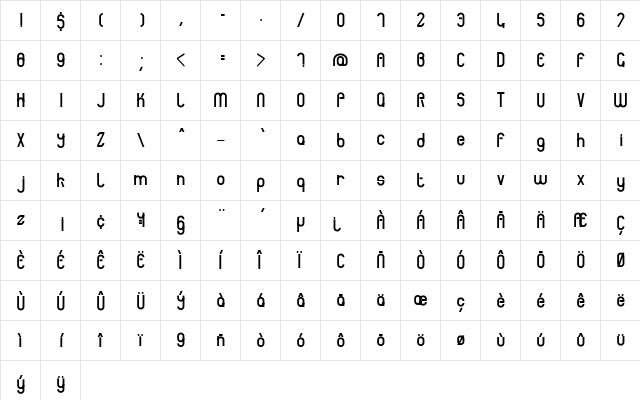
Tacoma Regular Font Preview
Tacoma Regular
Tacoma Regular Font Details
Design Context for Tacoma Typeface
Tacoma offers clean, dependable letterforms without strong stylistic allegiance, making it a practical choice for designers who need flexibility.